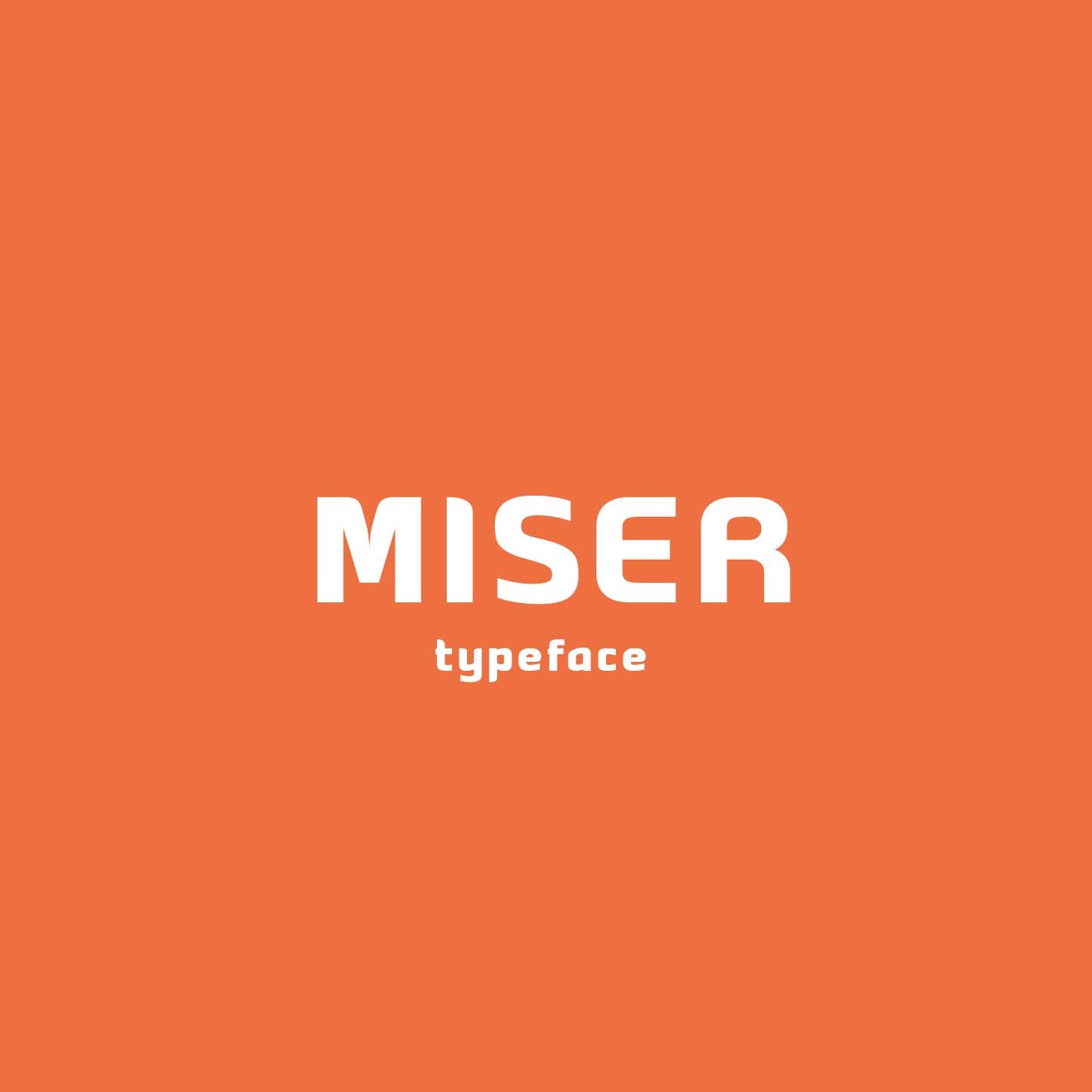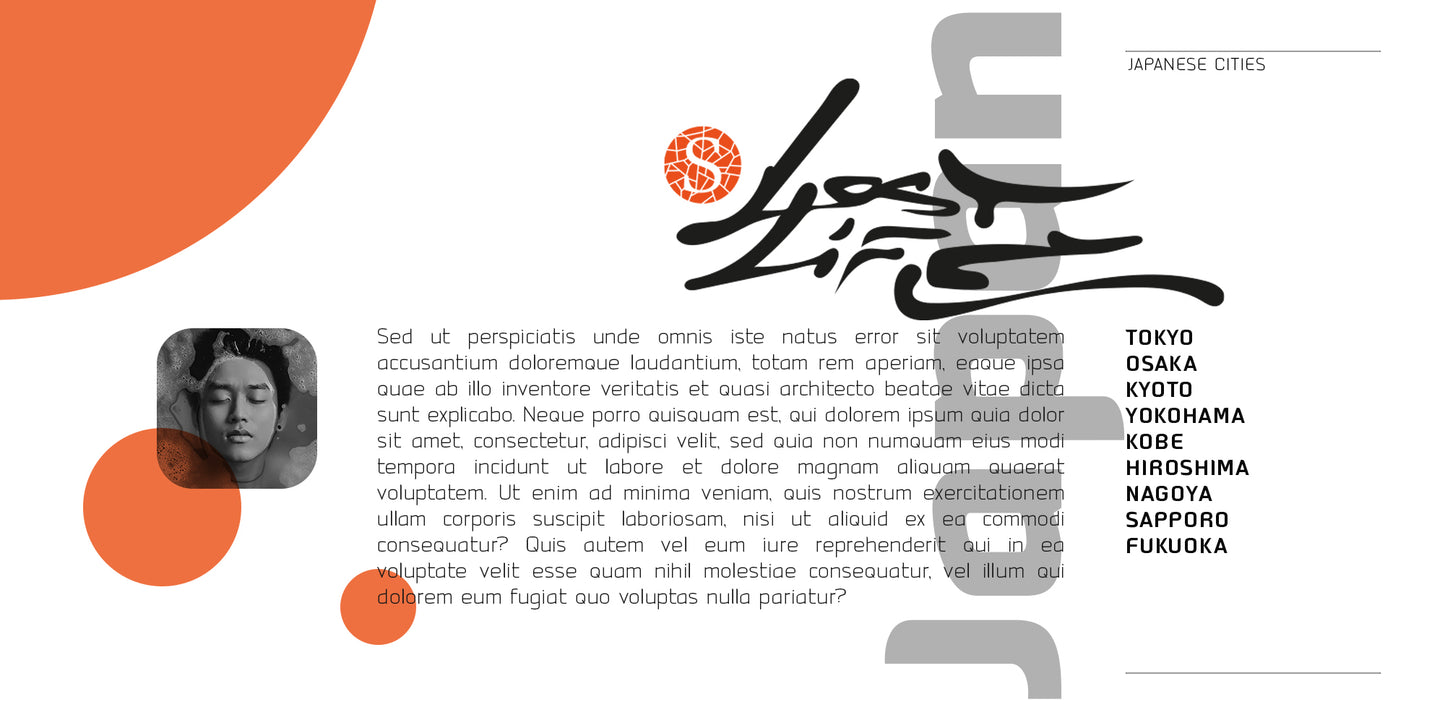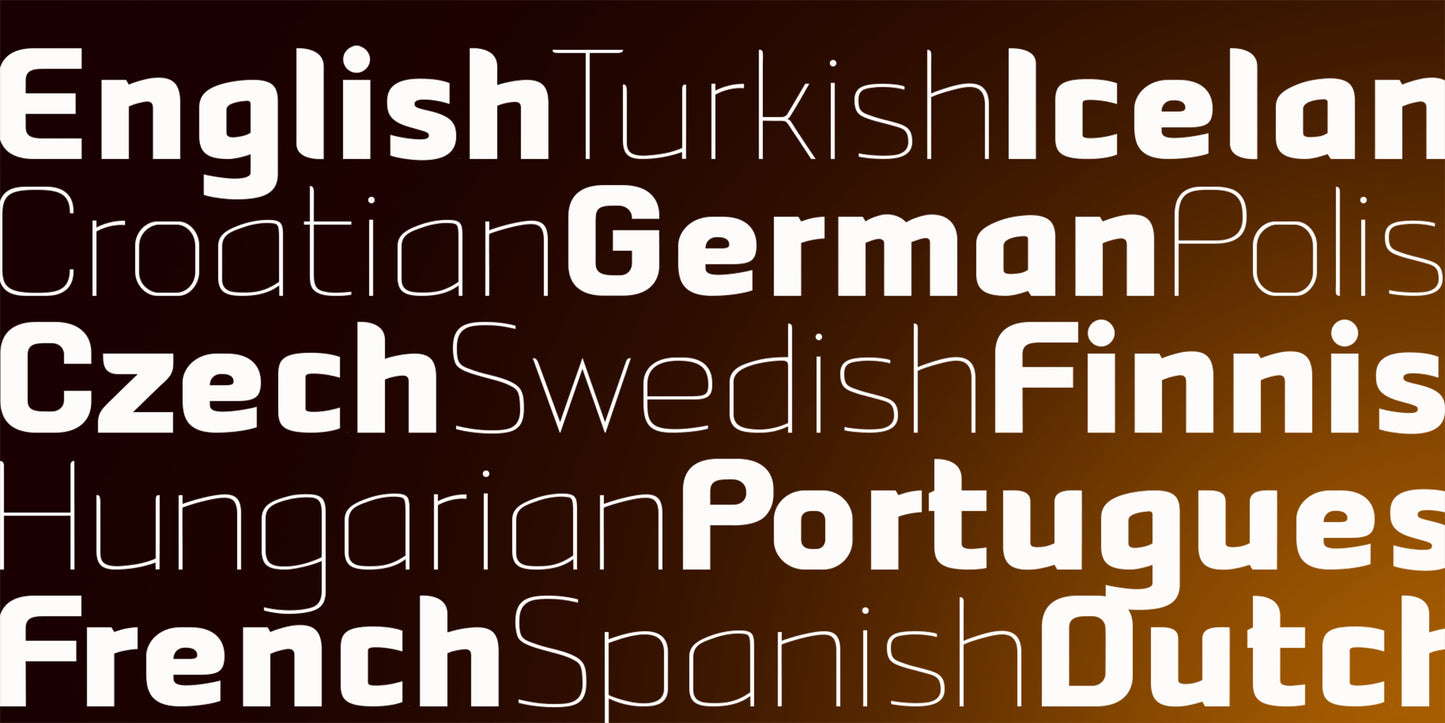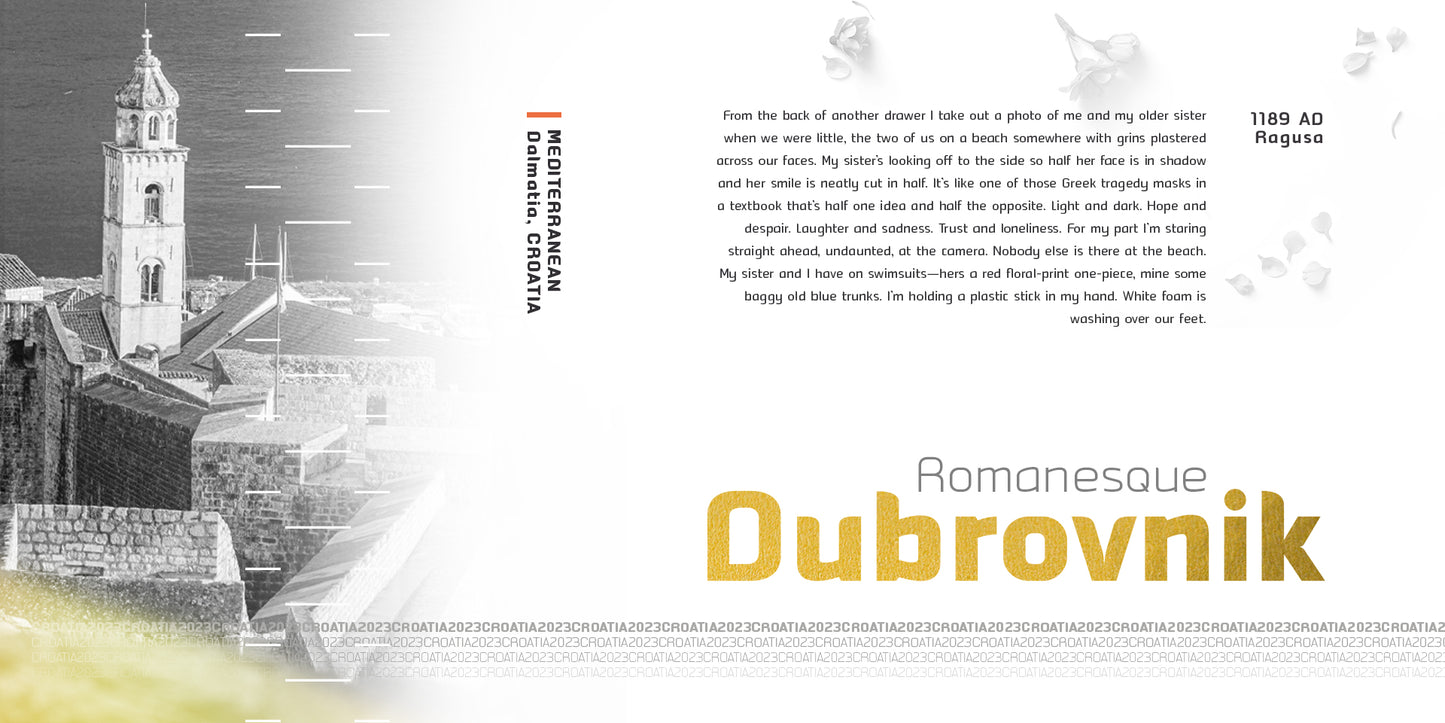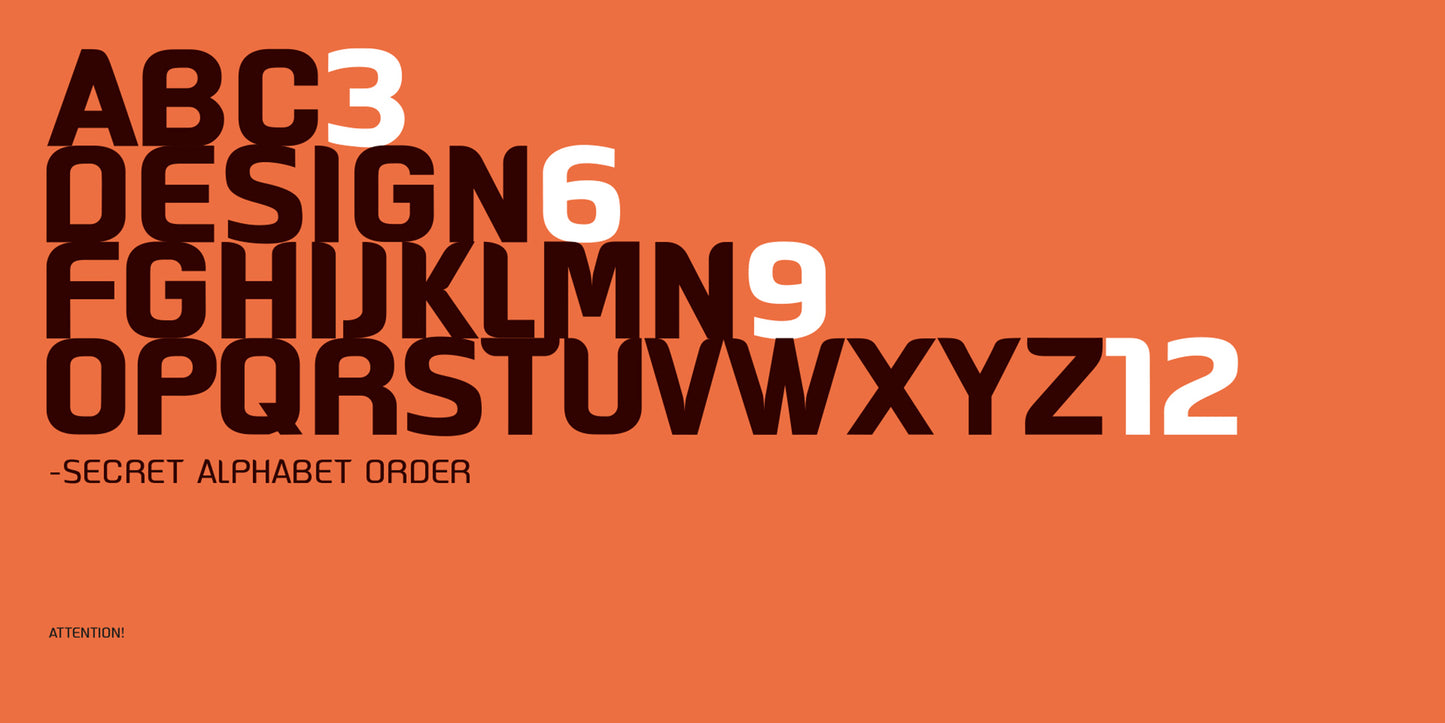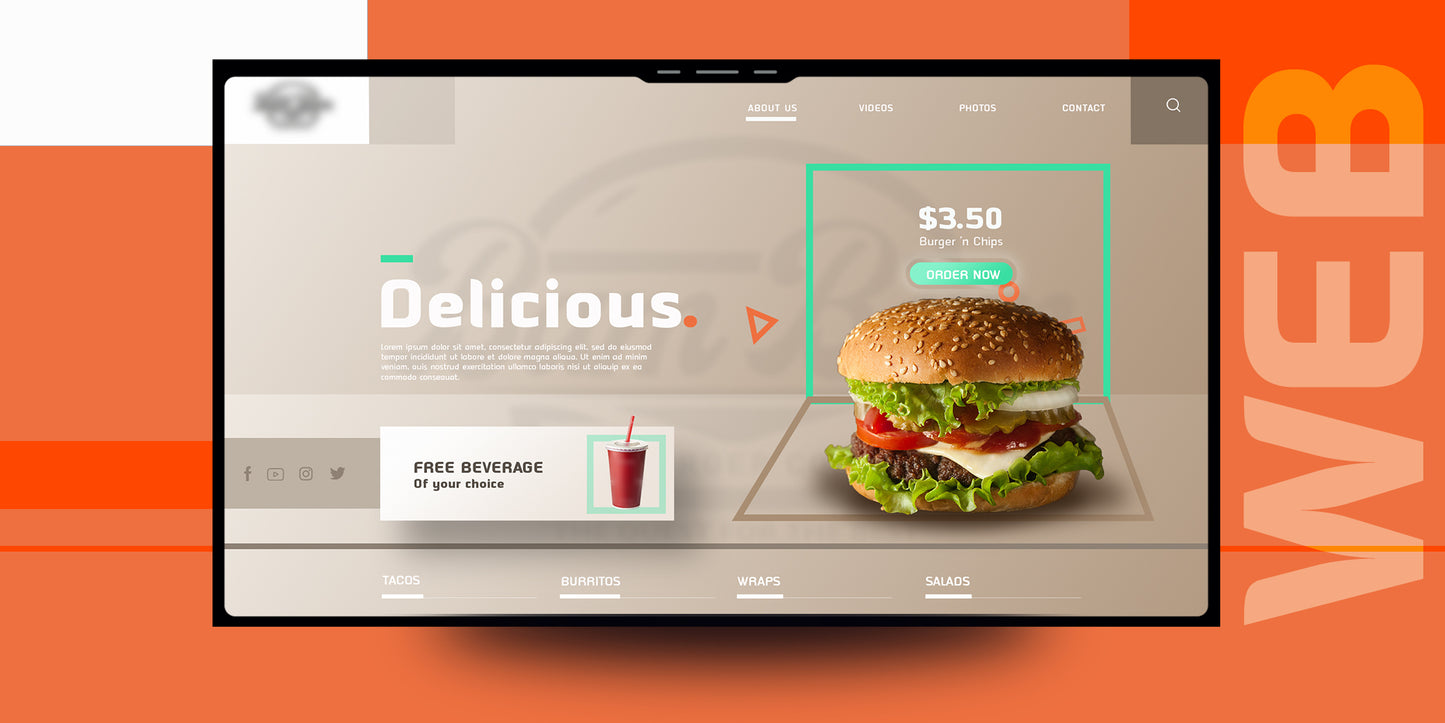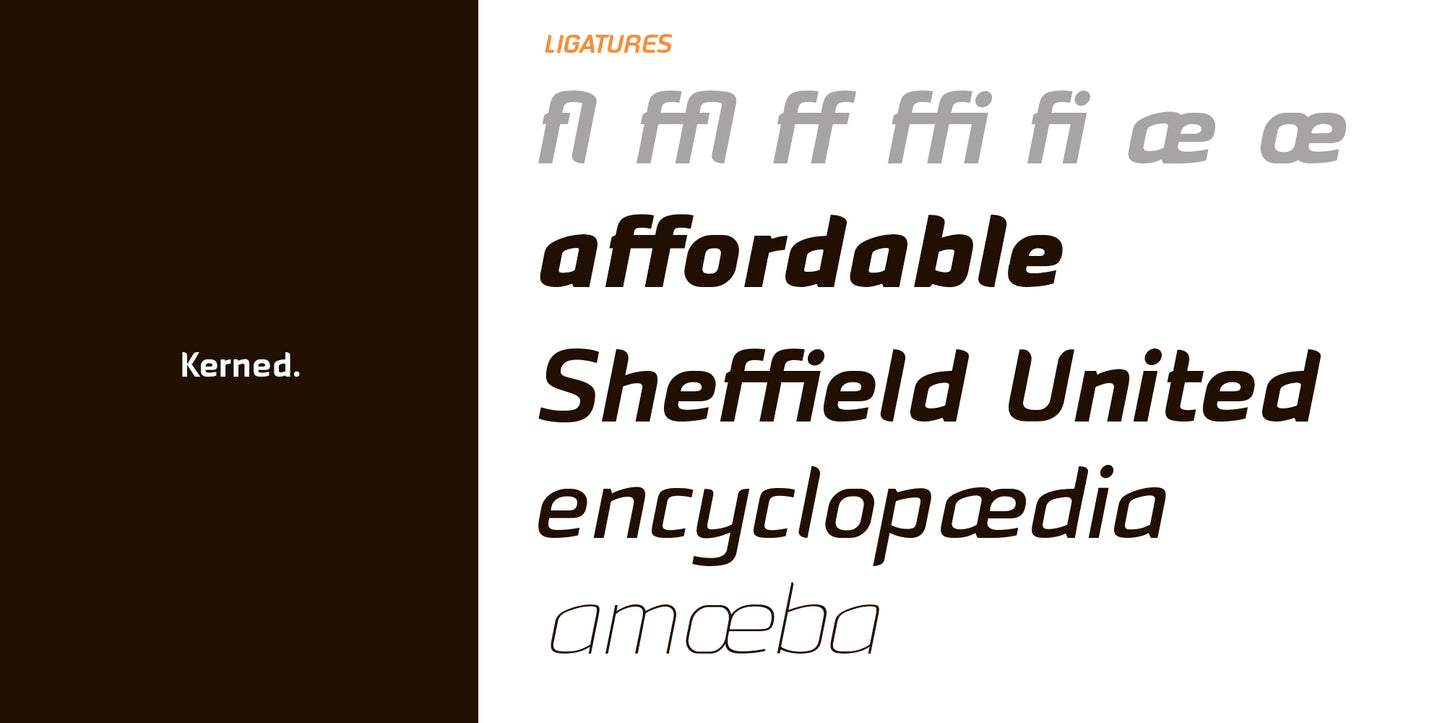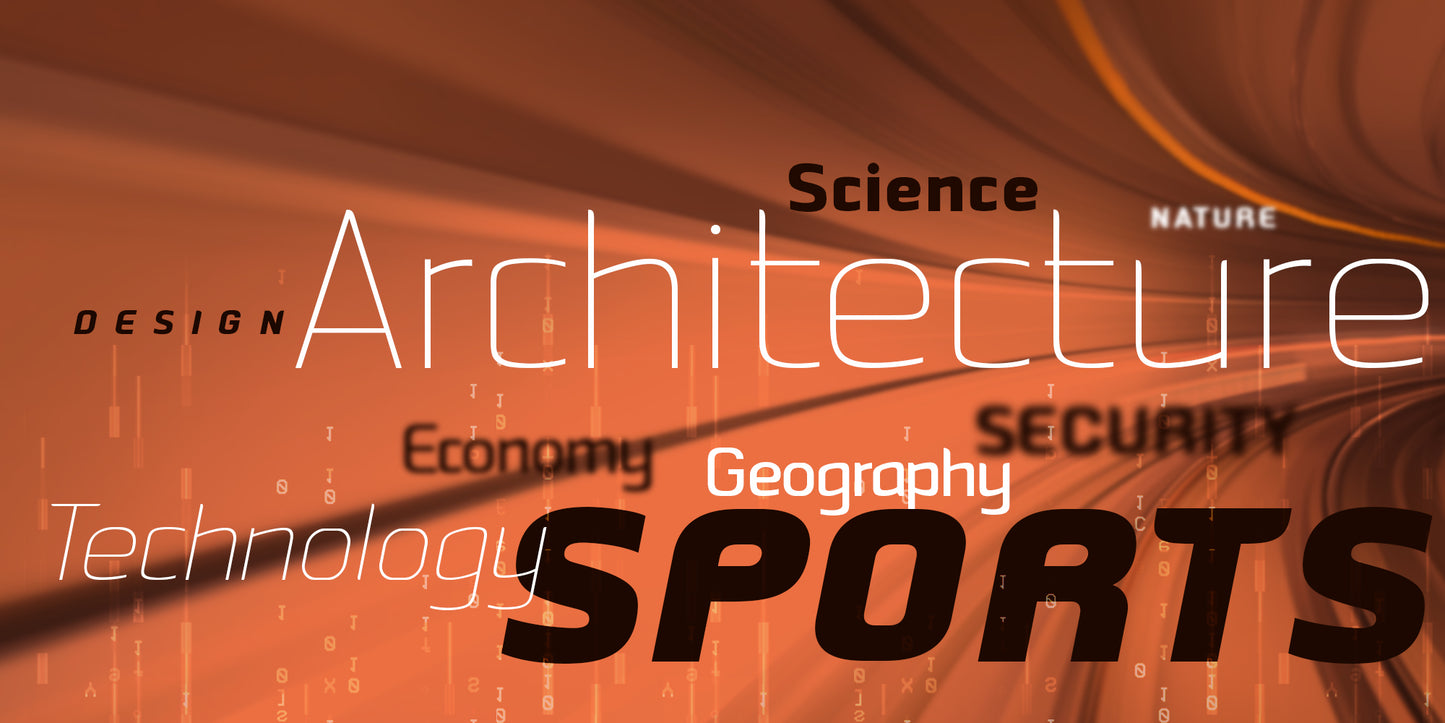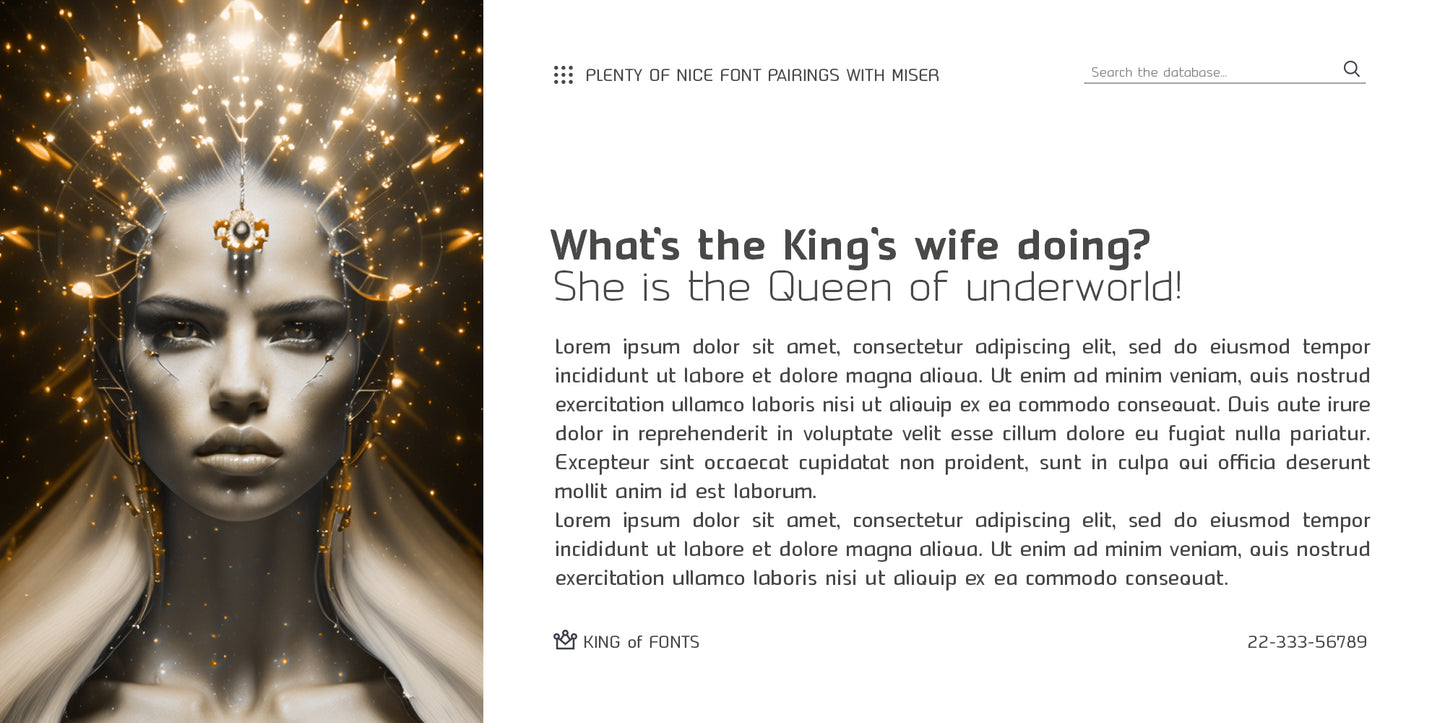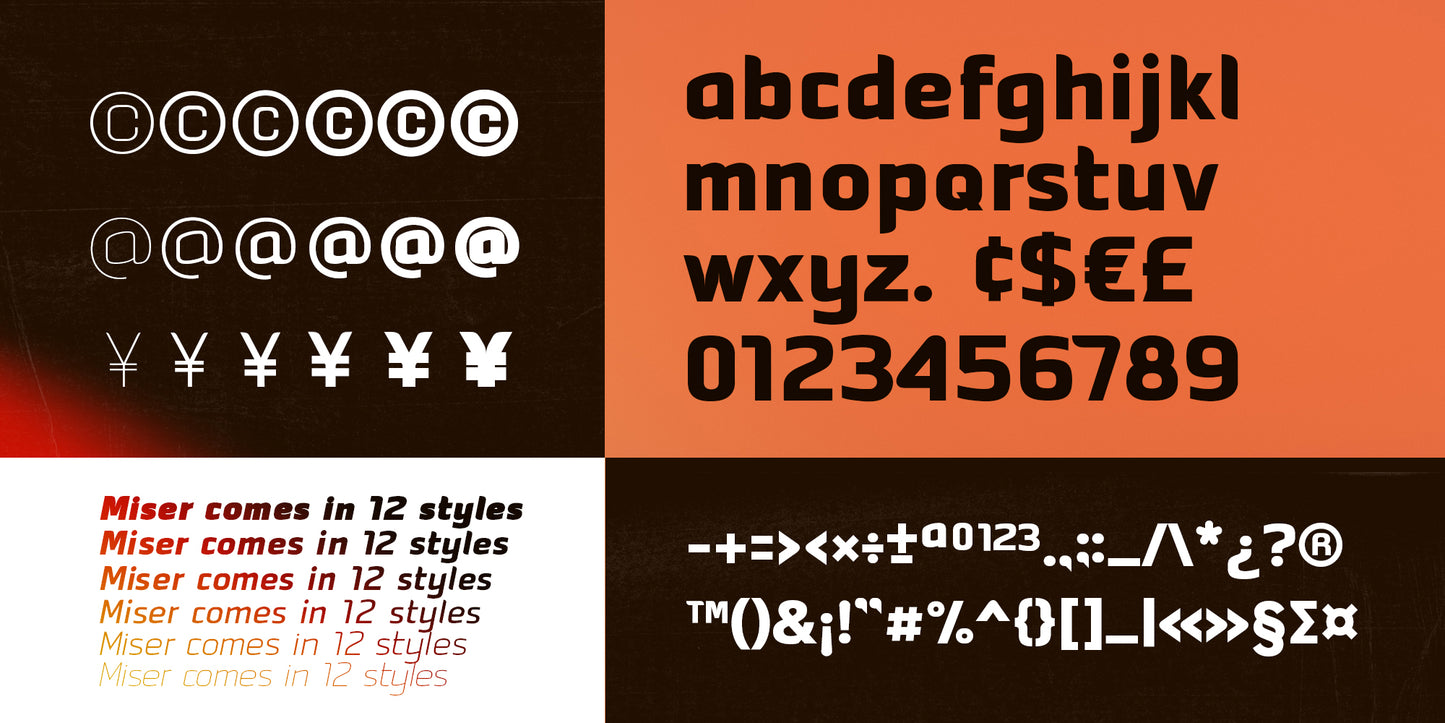
Typeface Miser
Smooth with the roughness and made from scratch, Miser sans serif font family was designed by Mislav Serdarušić and it's name is derived from designers name. Miser typeface blueprints were somewhere in the subconsciousness of the designer but have seen first light of the day in September,2021. during the Covid pandemic lockdown.
Inspiration comes from handwritten technical letters of designers parents and graffiti explorations.
It comes in 12 styles with all latin European language characters which are in daily use(without Greek or Cyrillic).
Designed in contemporary appearance with innovations on some letters, it is still legible in small sizes.
Basic ligature set is included. It is suitable for magazines, books and websites both graphics and paragraphs.
Miser has a taste of science, technology, design & architecture, sports and more, yet contemporary boldness but distinctive to regular and oval modern typeface shapes.